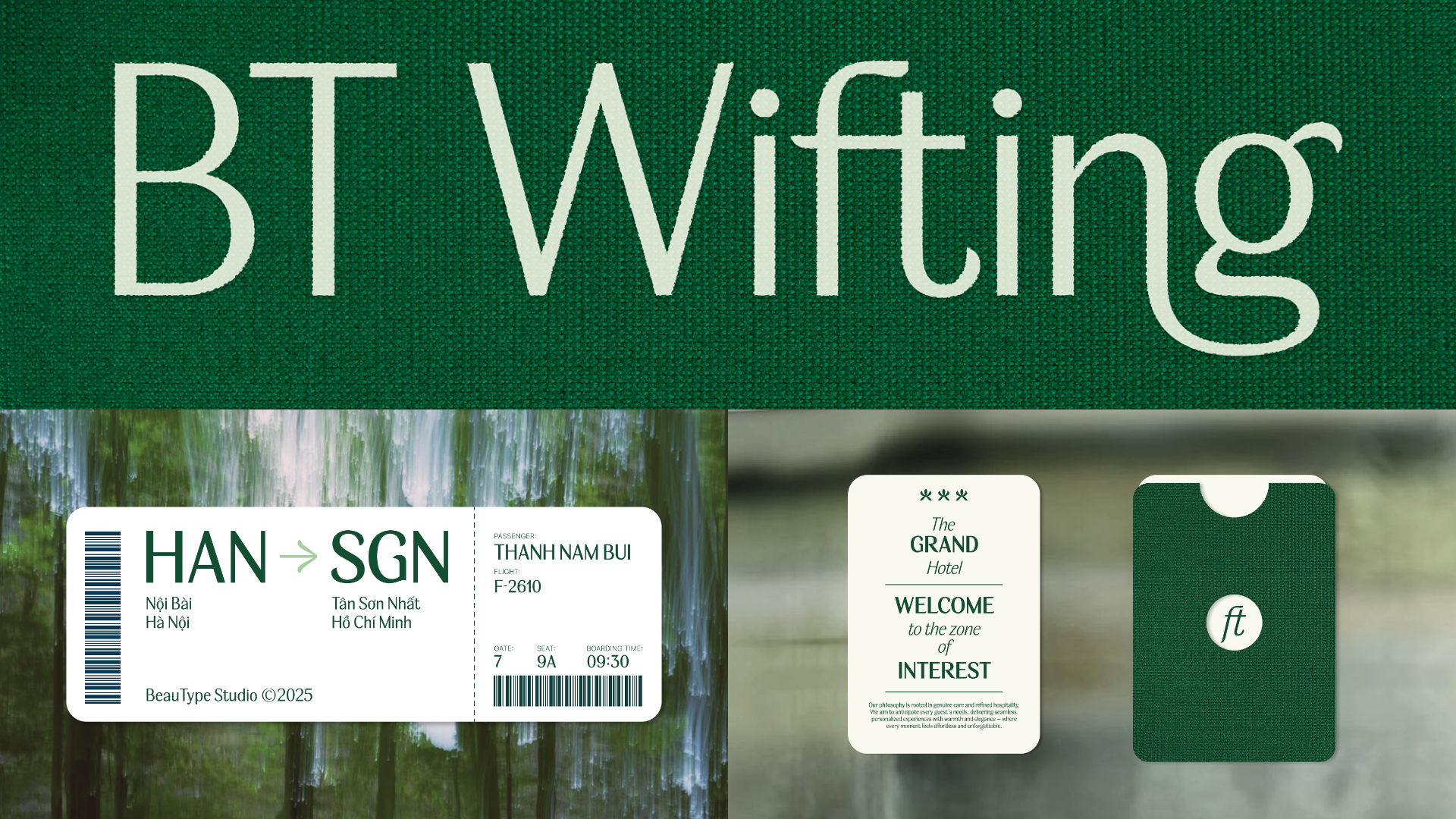
BT Wifting is a refined sans-serif typeface that captures the essence of modern travel and serene luxury. Its geometry is rooted in modernist clarity, with clean lines and subtle curves draw inspiration from the graceful form of the lotus flower, evoking balance, calm, and sophistication. Designed for airways, resorts, and high-end hospitality brands in mind, BT Wifting blends contemporary elegance with a sense of effortless motion—making it the perfect choice for identities that aspire to inspire journey, comfort, and timeless beauty. 14 fonts for $315 $220.50 | |